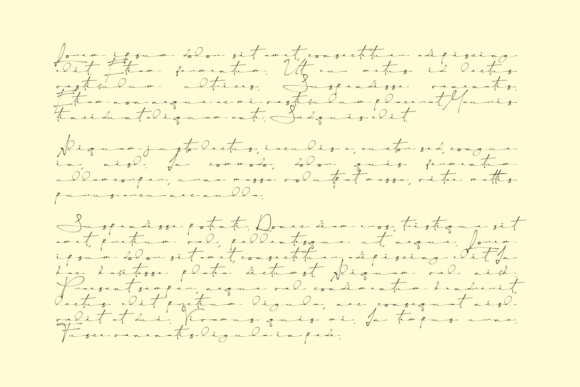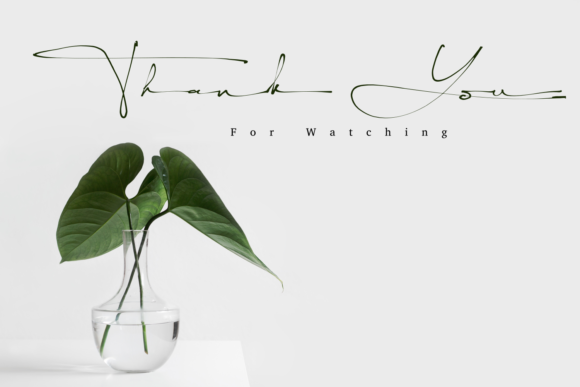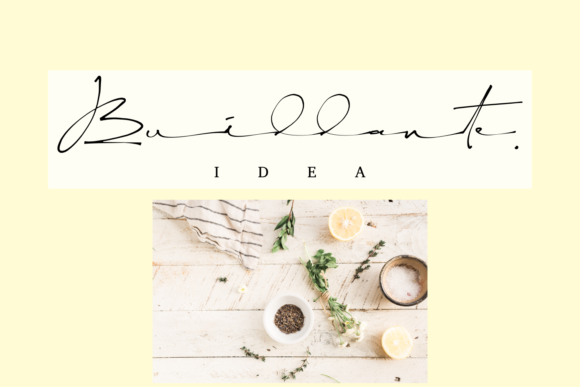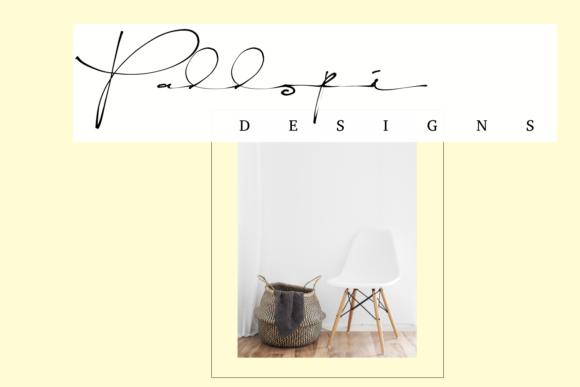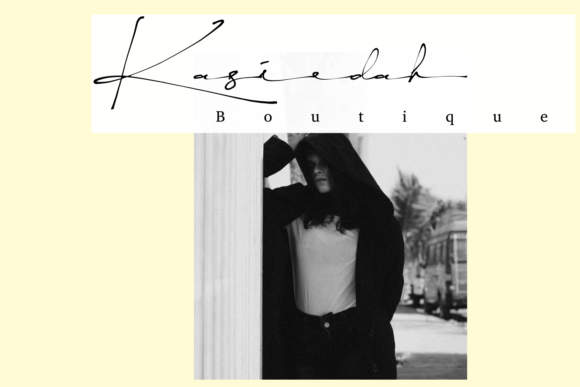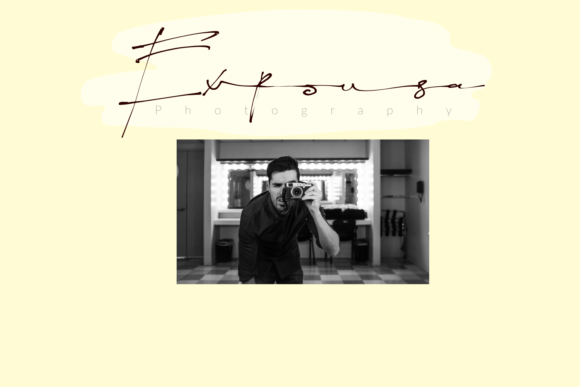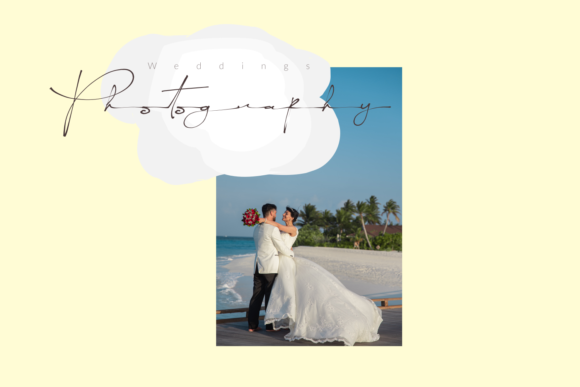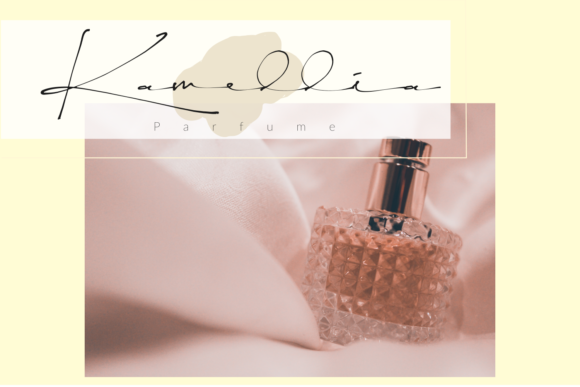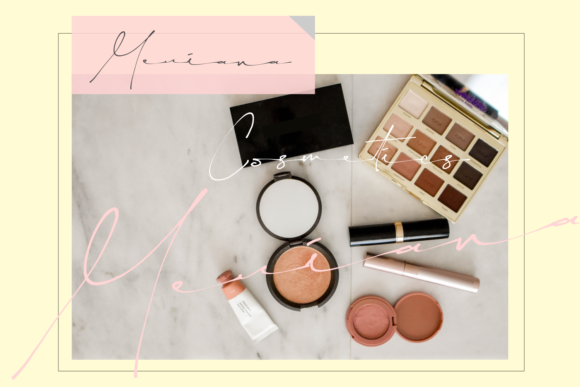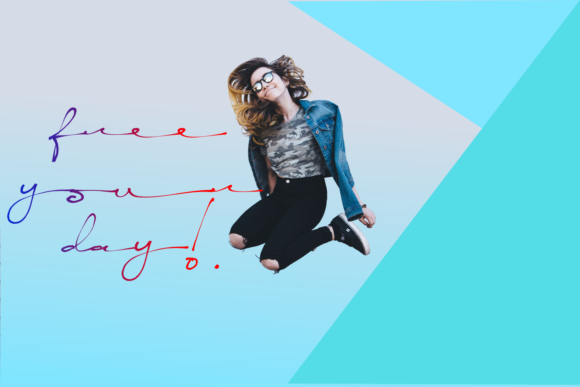
Yellova Signature Font
About Yellova Signature Font
Yellova Signature is a stunning and stylish handwritten font that exudes uniqueness and sophistication. With its thin and original letterforms, this font adds a touch of elegance and creativity to any design.
The thin strokes of Yellova Signature give it a delicate and refined appearance, while its distinctive style sets it apart from traditional fonts. It brings a modern and contemporary vibe to your projects, making them visually appealing and eye-catching.
Whether you’re creating logos, branding materials, social media posts, or any other design that requires a stylish and personalized touch, Yellova Signature is a perfect choice. Its unique letterforms make each word and phrase stand out, allowing you to create a strong visual impact.
The versatility of Yellova Signature allows it to adapt to a variety of design styles and themes. It complements both minimalist and bold designs, adding a touch of sophistication and originality. From fashion and beauty to lifestyle and luxury brands, Yellova Signature can elevate your visual identity and convey a sense of high-end aesthetics.
With Yellova Signature, you can experiment with different typographic layouts and letter combinations to create visually pleasing compositions. Its stylish and legible script ensures that your message is communicated effectively, while the originality of the font adds a unique touch to your designs.
Whether you’re designing for print or digital platforms, Yellova Signature delivers exceptional results. Its thin and stylish appearance shines in both large headlines and smaller text elements, providing versatility and visual impact across different applications.
In summary, Yellova Signature is a unique and stylish handwritten font that adds a touch of elegance and originality to your designs. Its thin and original letterforms make it stand out, allowing you to create visually stunning compositions. Use Yellova Signature to make a bold statement and leave a lasting impression on your audience.